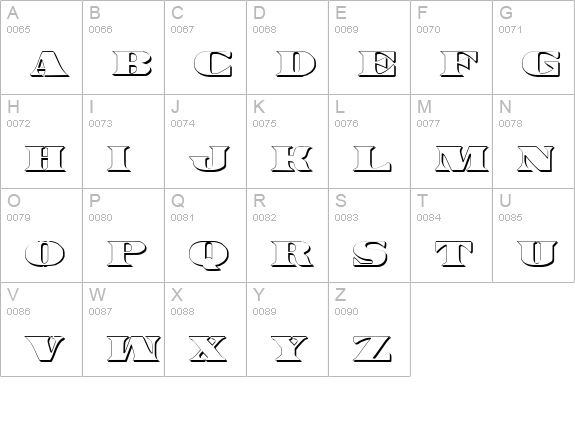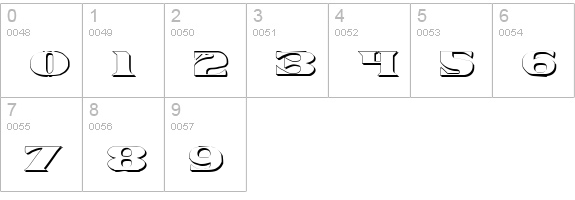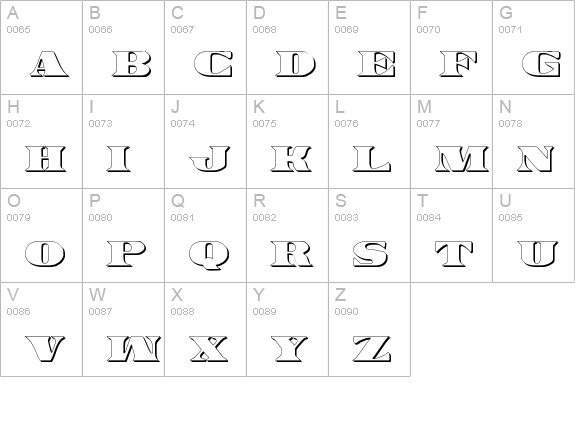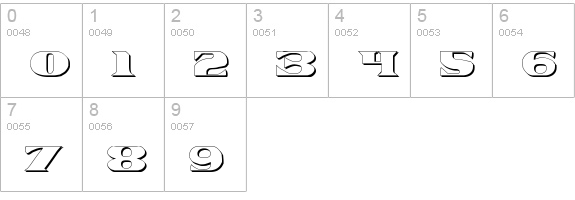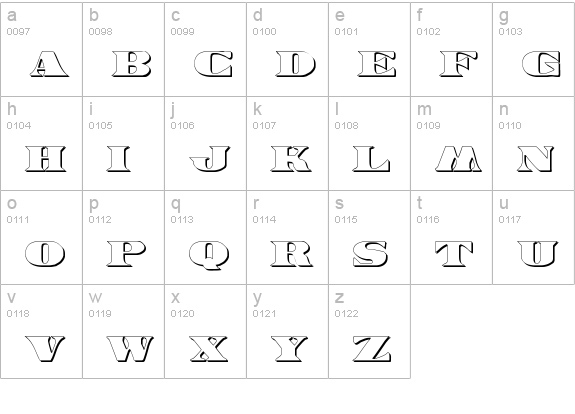
Legal Tender 3D Font Details
Introducing Legal Tender 3D, a captivating font that combines the power of three dimensions with the elegance of legal tender. This unique typeface exudes a sense of authority and sophistication, making it the perfect choice for projects that require a touch of professionalism and finesse. With its intricate three-dimensional design, Legal Tender 3D commands attention and adds depth to any text or headline. Each letter is meticulously crafted, ensuring that every curve and line is flawlessly rendered, resulting in a visually stunning display. The versatility of Legal Tender 3D knows no bounds, as it seamlessly adapts to a wide range of applications. Whether you're designing a logo for a law firm, creating eye-catching signage for a financial institution, or crafting an engaging advertisement for a luxury brand, this font is sure to leave a lasting impression. One of the best parts about Legal Tender 3D is that it is freely available to download at FontsMarket.com. This means that you can easily access this exceptional font without any cost. Say goodbye to the hassle of expensive font licenses, as Legal Tender 3D offers you the freedom to use it in your personal and commercial projects without breaking the bank. So why wait? Download Legal Tender 3D today and elevate your designs to new heights. With its striking three-dimensional presence and its availability for free at FontsMarket.com, this font is a must-have for any designer or creative individual looking to make a statement. Embrace the power of Legal Tender 3D and unleash your creativity like never before.